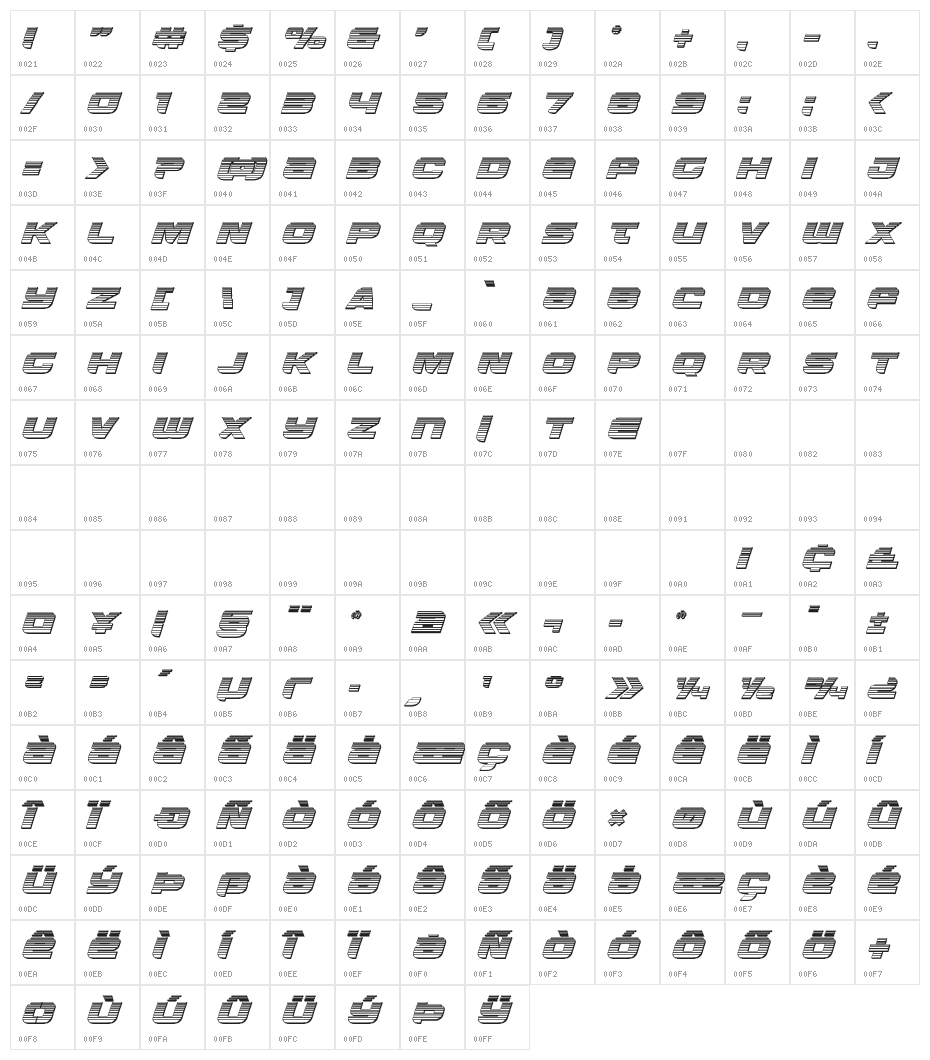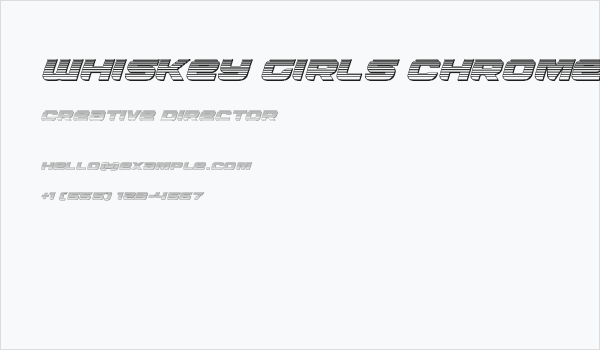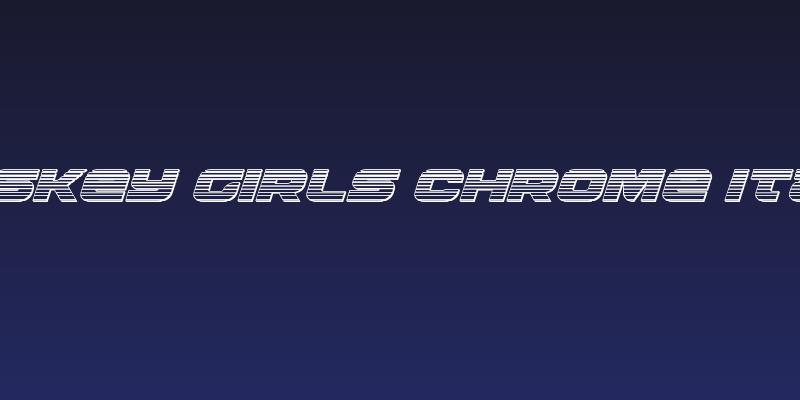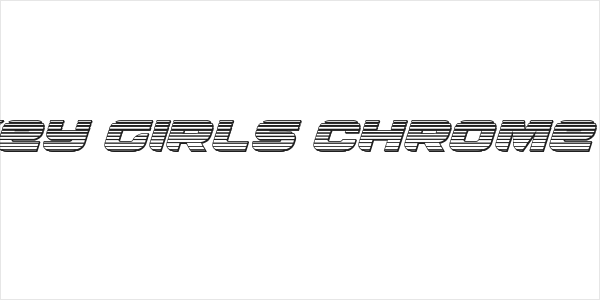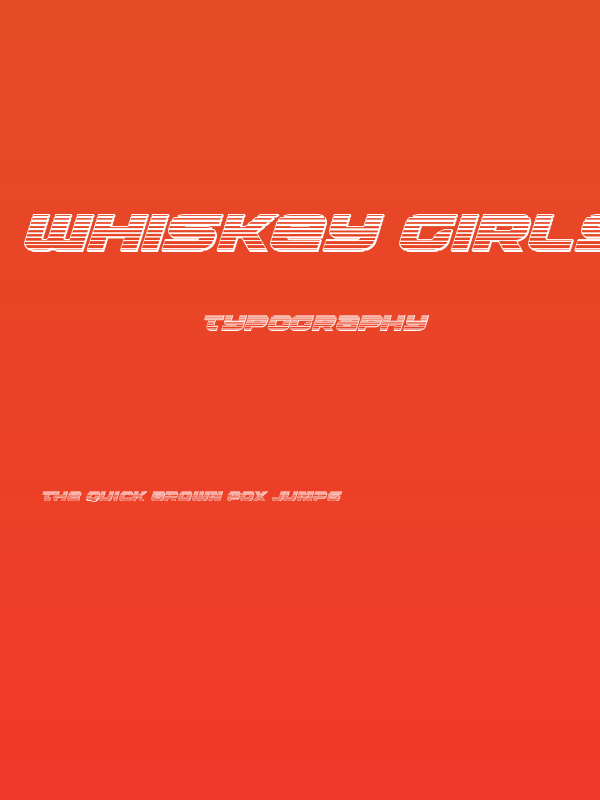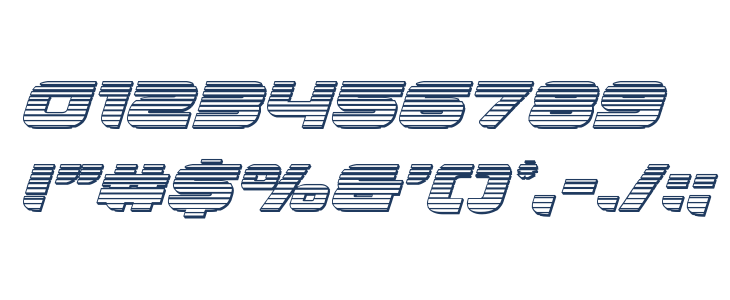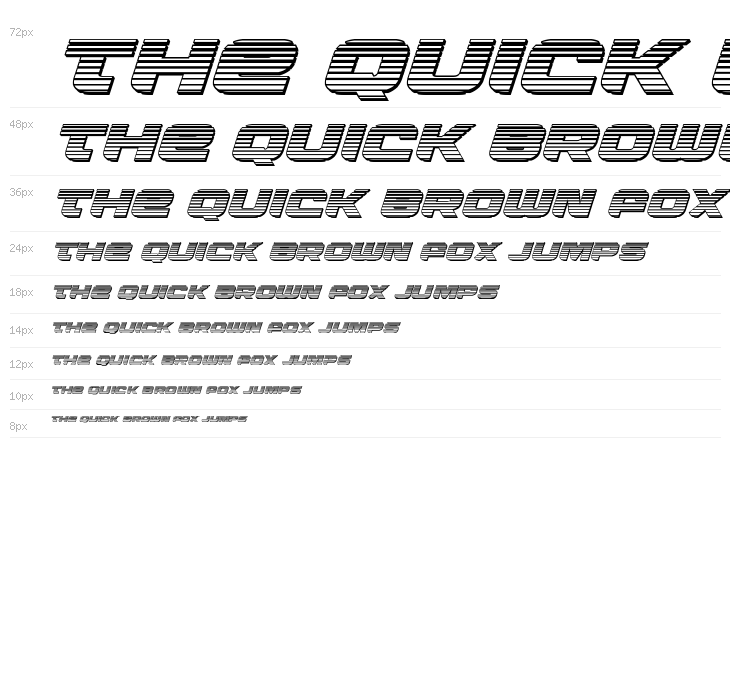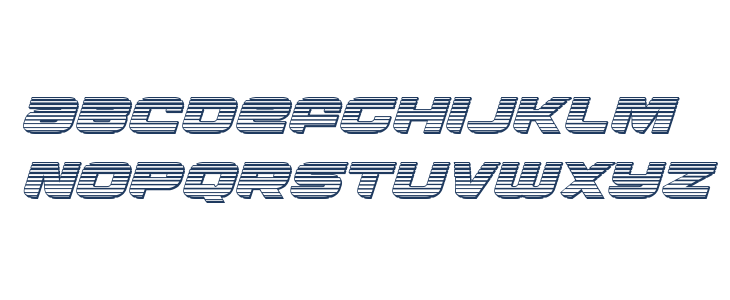
Whiskey Girls Chrome Italic Font
Whiskey Girls Chrome Italic Description
This font features a bold, italicized style with a distinctive chrome-like appearance. The characters are designed with multiple horizontal lines that create a layered effect, giving them a three-dimensional look. The uppercase and lowercase letters maintain a consistent width, contributing to a cohesive visual flow. The numerals and special characters are crafted with the same attention to detail, ensuring uniformity across the font. Its unique design makes it stand out, ideal for projects that require a futuristic or industrial aesthetic. The font's structure is both modern and decorative, making it versatile for various creative applications.